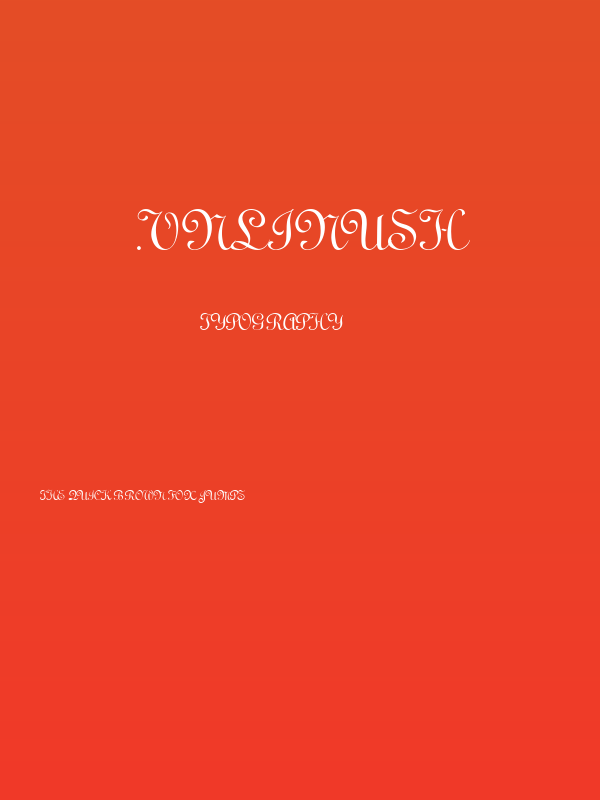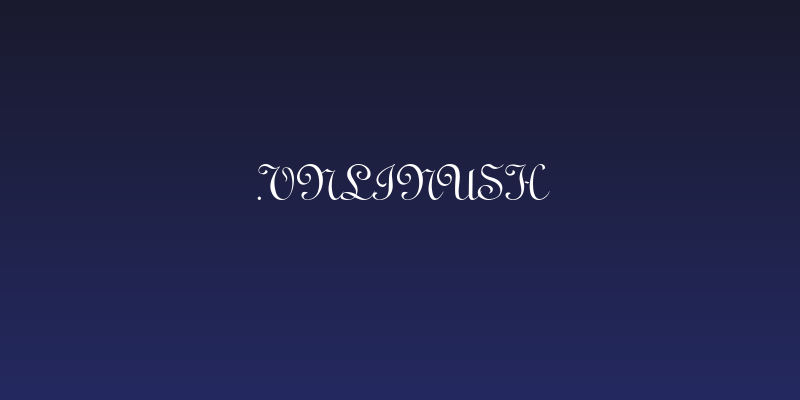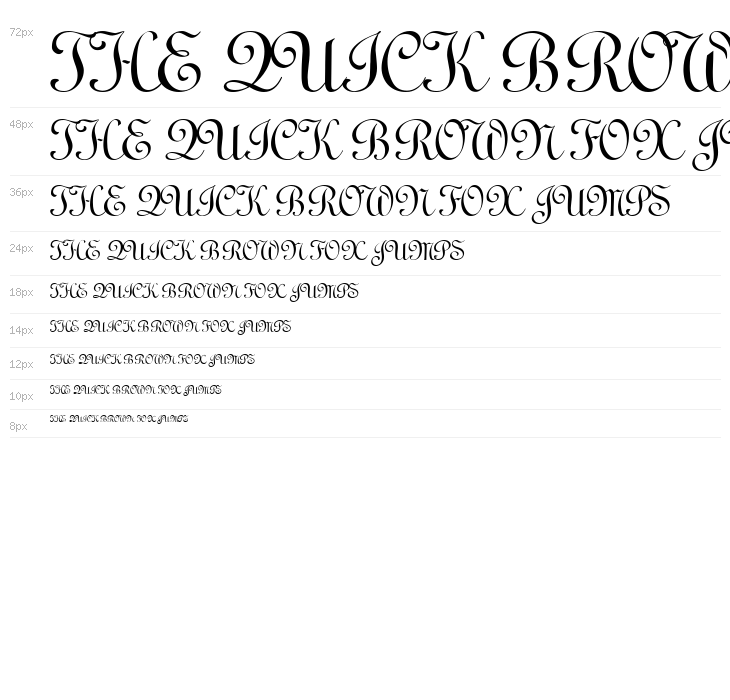
.VnLinusH Font
.VnLinusH Description
This font features an elegant and ornate script style, characterized by its flowing curves and intricate details. Each letter is crafted with a sense of sophistication, making it ideal for formal and decorative uses. The uppercase letters are particularly elaborate, with sweeping lines and flourishes that add a touch of grandeur. The lowercase letters maintain a consistent style, complementing the uppercase with their own subtle embellishments. The numerals and special characters are designed to match the overall aesthetic, ensuring a cohesive look across all text elements.
| Use Case | Logos, Invitations, Decorative headings |
| Proposed Projects | Ideal for wedding invitations, luxury branding, elegant signage, and decorative headings. |